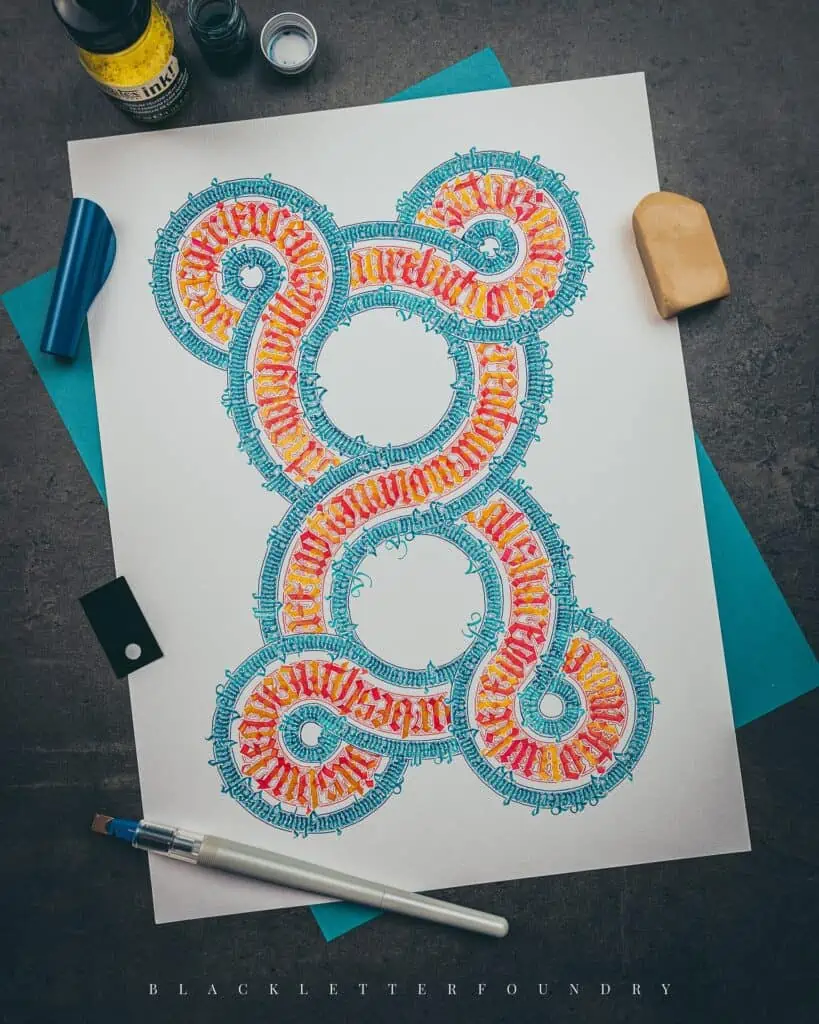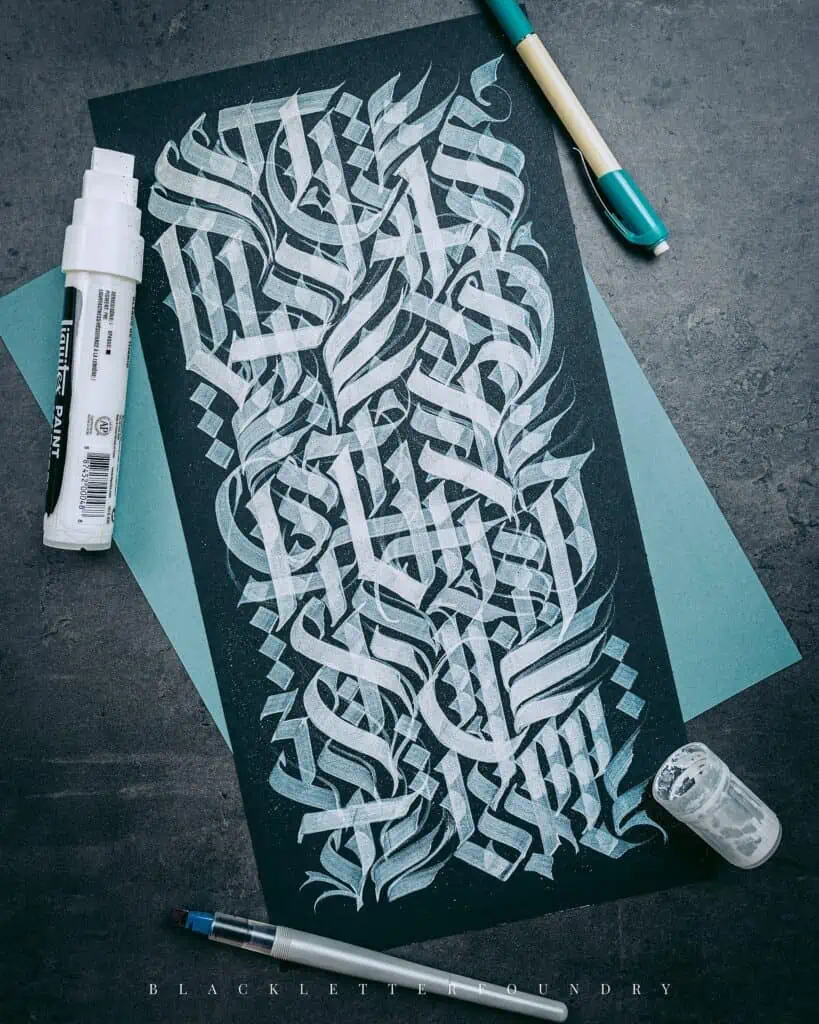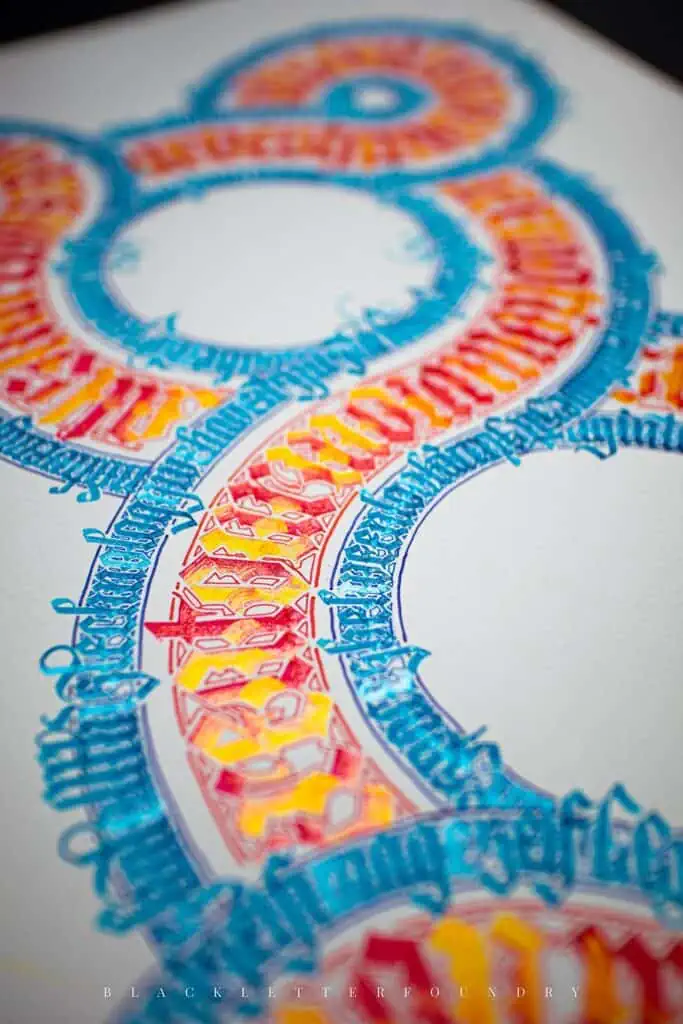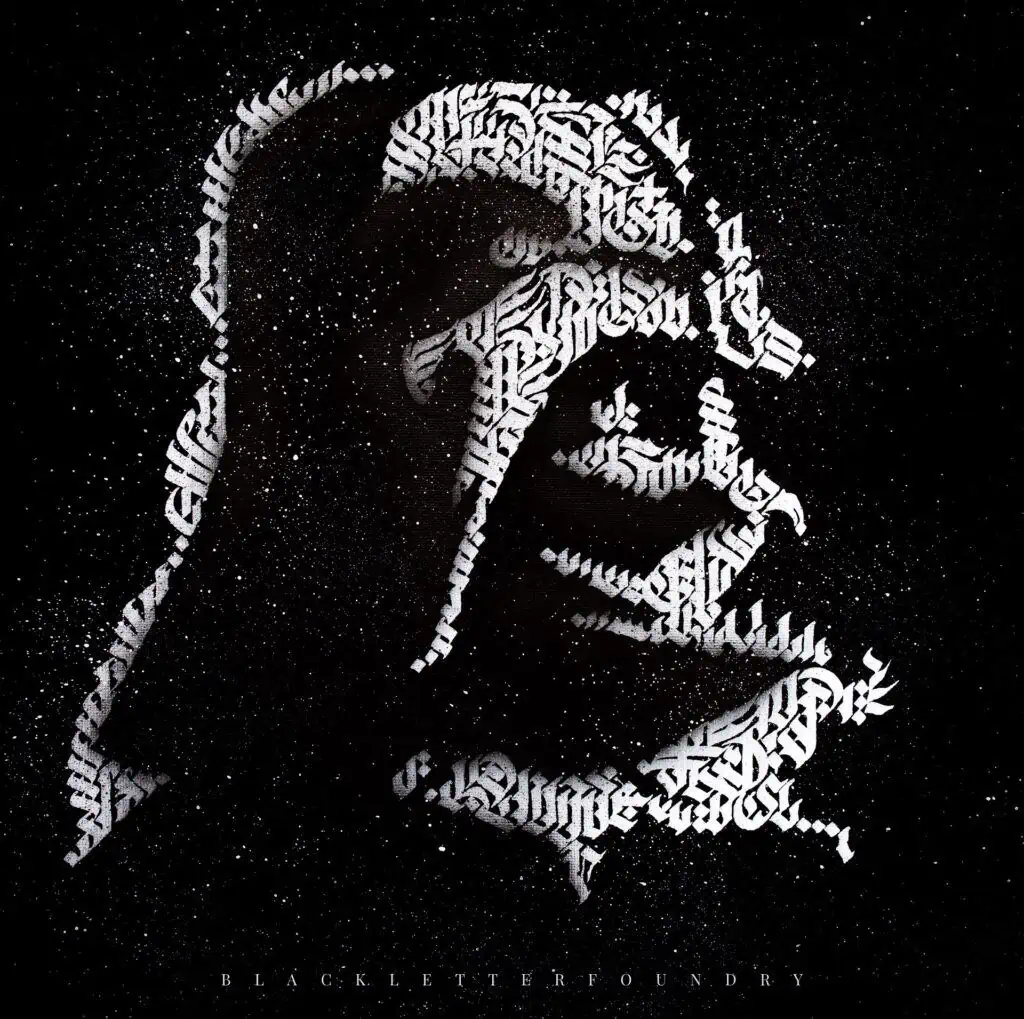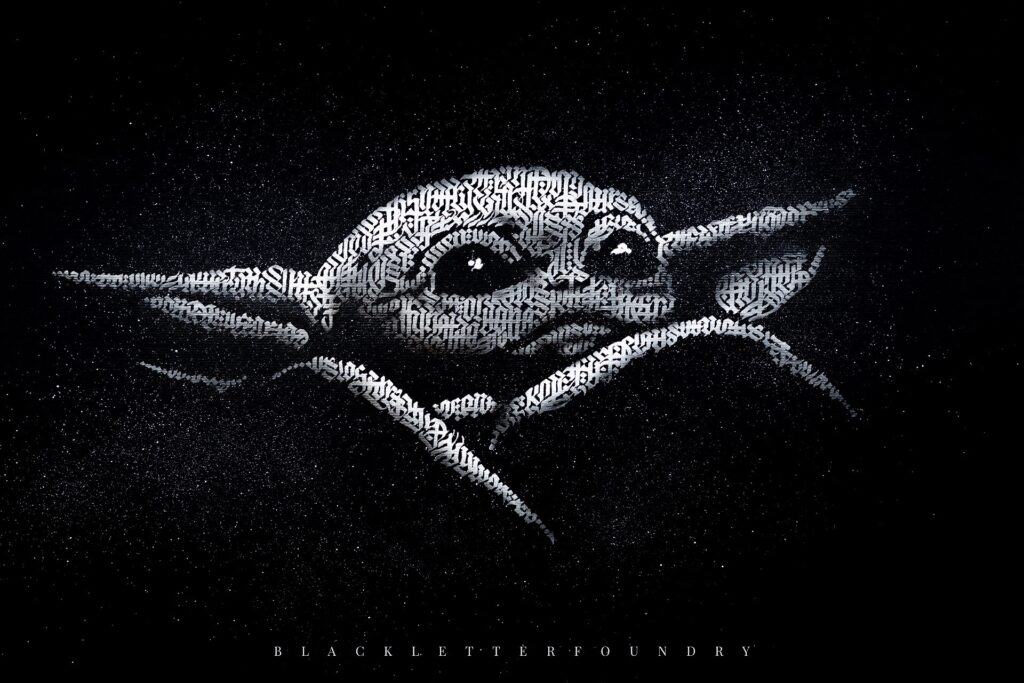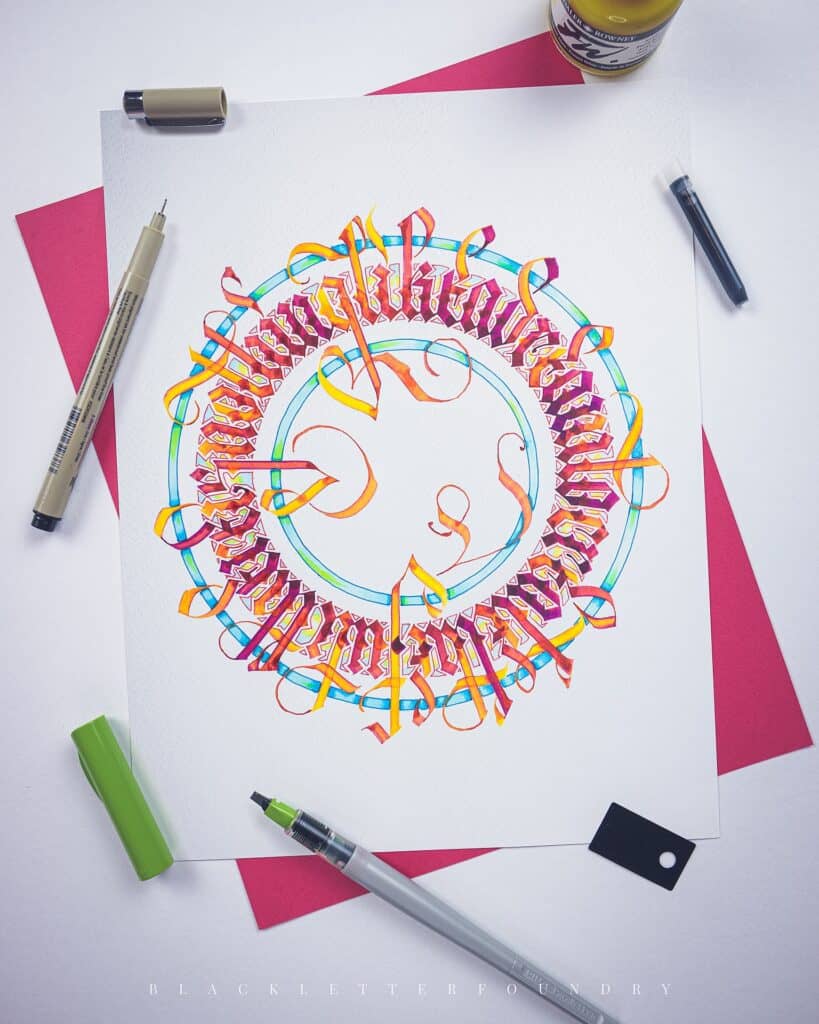
Blackletter calligraphy isn’t just a strict and rigid style of writing. Once you get a good grasp of the basics, it’s hard to imagine everything you can achieve with a broad-edged pen.
In this interview, I had the pleasure of having a quick chat with a talented calligrapher and friend – Tamer Ghoneim of Blackletter Foundry. Join us and learn more about Tamer’s journey through the world of blackletter calligraphy with a fresh twist to it.
1. For those who don’t know you, could you give us a few lines about yourself?
My name is Tamer Ghoneim of Blackletter Foundry, and I’m a professional calligrapher, teacher, and artist from Houston, Texas.
I love calligraphy and believe that absolutely anyone can learn how to write beautifully and make calligraphic art. I love working with all “calligrafriends” out there and helping them reach that moment where they’re excited and proud of what they’ve made.
I’m also a bit of a comic book, superhero, and sci-fi/fantasy fan.
2. How long have you been practicing and studying the art of calligraphy? How did it all start?
I remember the exact moment that I discovered the magic of calligraphy.
I stumbled on a video of someone writing beautifully with a fountain pen, and I was utterly mesmerized. The pens, the nibs, the inks… I was hooked.
I think I spent the next five or six hours rewatching that fountain pen video and looking up other calligraphy videos, trying to discover what wizardry was behind such magical writing.
That happened around 2013 or 2014, then a few years later, I stumbled on an instructional book about broad nib calligraphy while walking out of a local book store and totally fell in love with these styles. I’ve spent every possible moment since researching, practicing, and experimenting with writing.
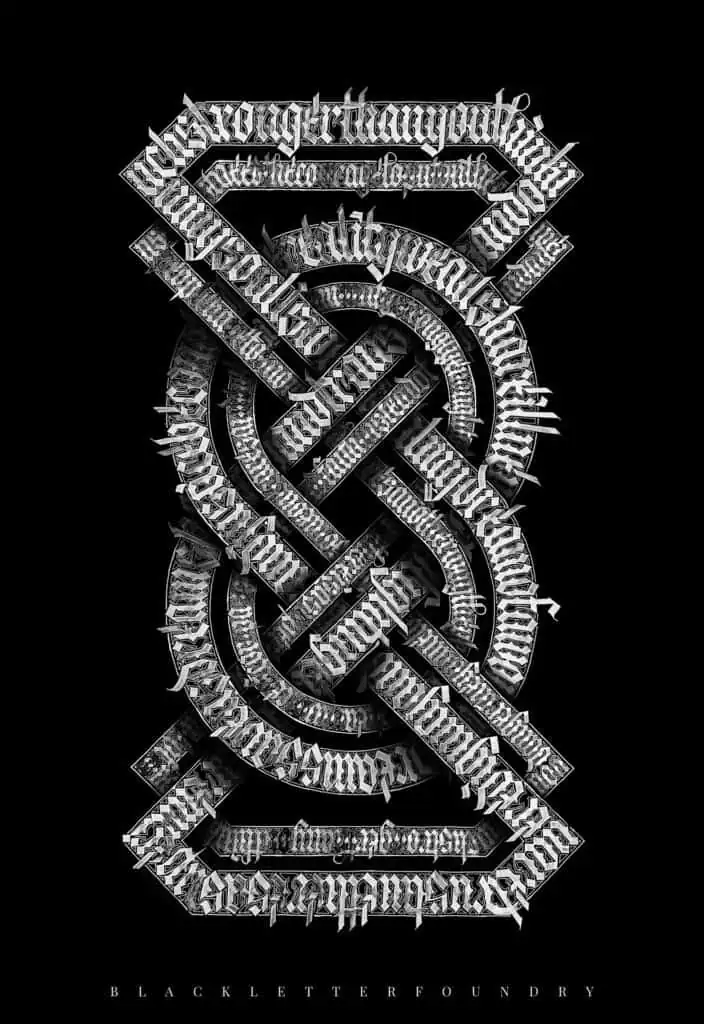
3. Some of my favorite artworks you have created are the big and complex calligrams. Where do you find the inspiration for them?
The inspiration for these calligram projects came from a desire to combine two types of art that I love – illustrative art and calligraphy. While researching and trying to absorb everything I could about Blackletter-style writing, I’d stumbled on abstract broad-nib designs. Unfortunately, I couldn’t find any instructional material for working with this style, so I spent months focused on deciphering techniques used to make these types of designs.
I eventually worked out a style (sometimes including hidden words and phrases) for filling blocked areas then had the idea of combining the abstract design with an illustration.
My first design was made digitally on an iPad was an illustration of Darth Vader, and I was so thrilled when the composition worked! I then worked out how to pull off the technique by hand using traditional tools, and I now have fun creating these both digitally and on paper or canvas. I’ve created abstract calligrams of the Joker, the Avengers, Baby Yoda and always have so much fun working on these projects!
4. What are your thoughts on the divisiveness between digital and analog calligraphy? Especially with more traditional blackletter styles?
I’m so happy to chat about this! I could probably write a book about my thoughts on this topic, but I’ll try to be a bit more concise.
I think there’s plenty of room in the creative world for both digital and analog calligraphy (and a combination of the two!).
You can pull off techniques with a pen that aren’t possible or are extremely difficult to replicate digitally and vice versa. For example, changing colors, playing with unique effects and layered designs, the magic of “undo…” All of these can be easily accomplished digitally but are difficult or impossible using traditional tools.
We can create beautiful calligraphic art using each approach and combining both together, so I believe in celebrating all of the ways we can express ourselves creatively.
I believe that a knowledge of the fundamentals using pen and paper really helps when making the transition to digital, so I encourage everyone to try both and enjoy creating with whatever tools work best for you.
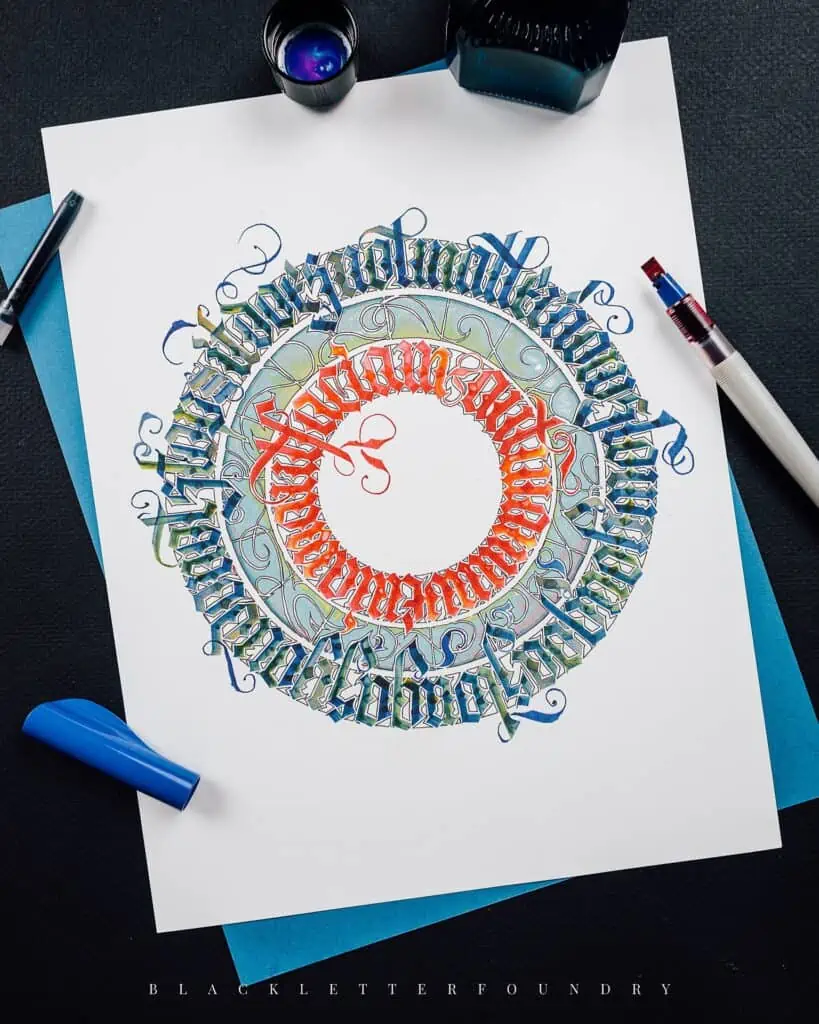
5. I know that you have recently decided to make calligraphy your full-time job. What motivated you to take that step, and what was the thing that held you back from doing it earlier?
The things that held me back from pursuing my love of calligraphy as a full-time job boil down to fear, imposter syndrome, and a lack of knowledge of building a creative business. I don’t have any formal art training or education – I’m entirely self-taught but have loved and practiced art my entire life.